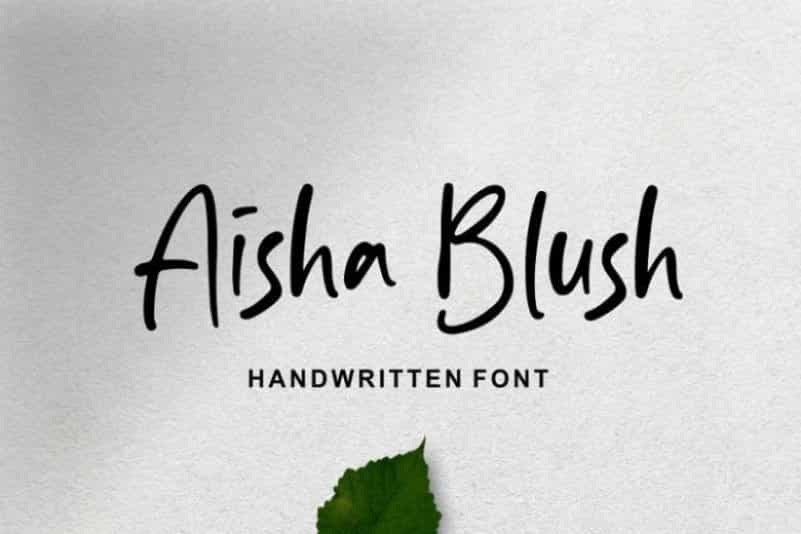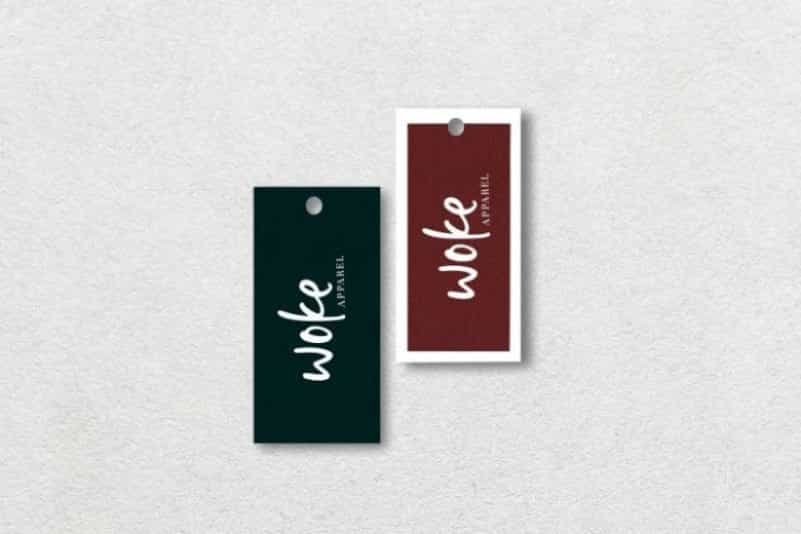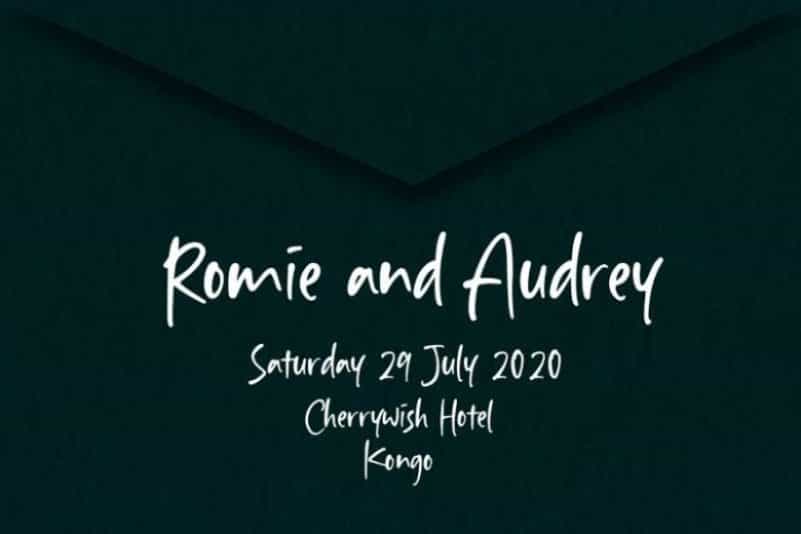
Aisha Blush Font is a natural handwritten font, this font is suitable for logo design, invitation, stationery designs, wedding designs, social media, advertisement, product designs, product packaging, labels, photography, watermark, special occasions or any other related purpose.